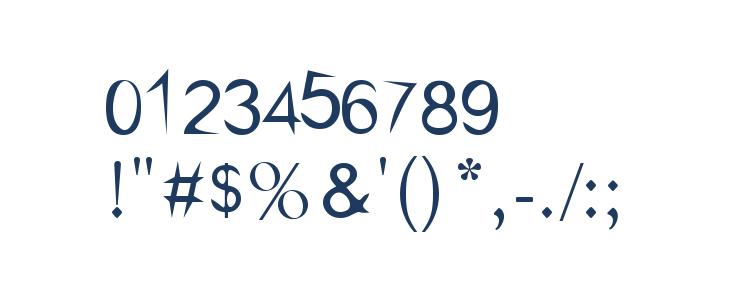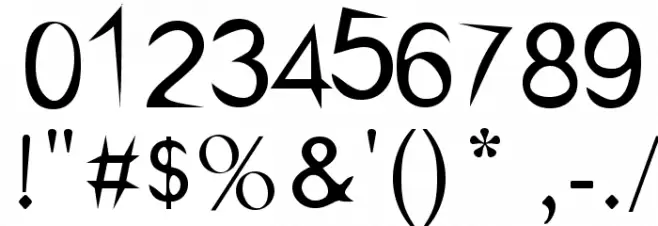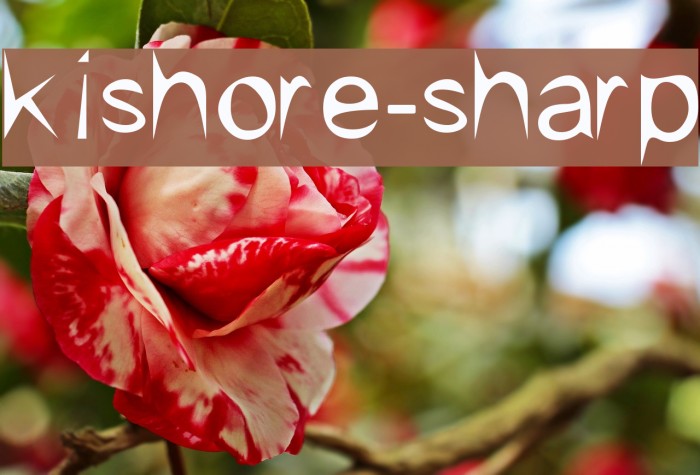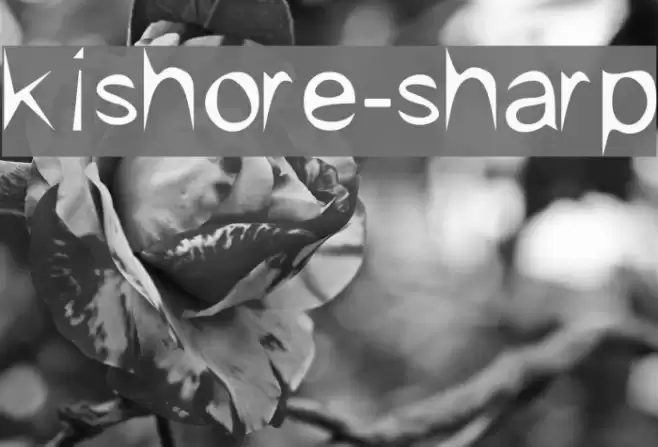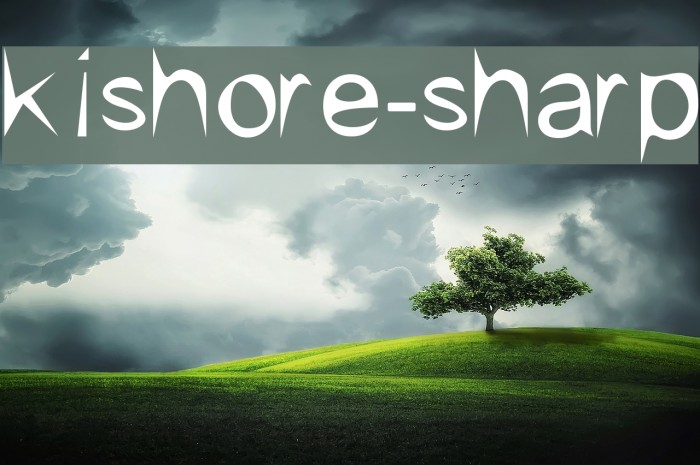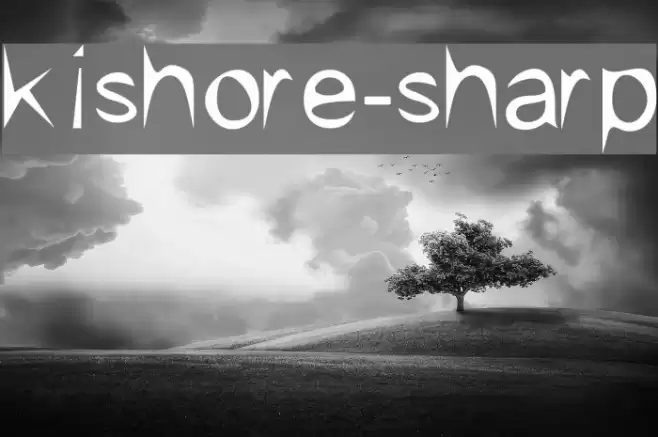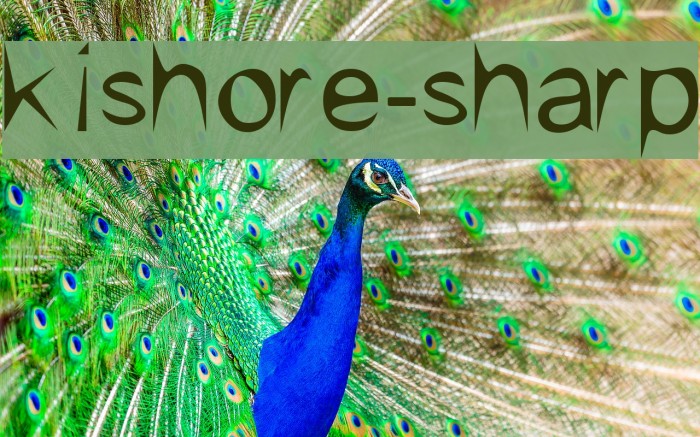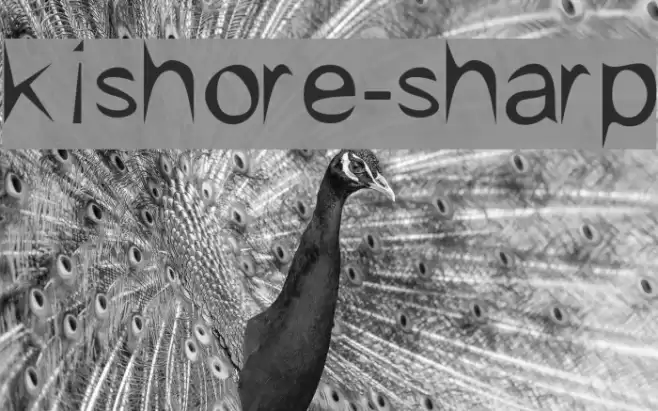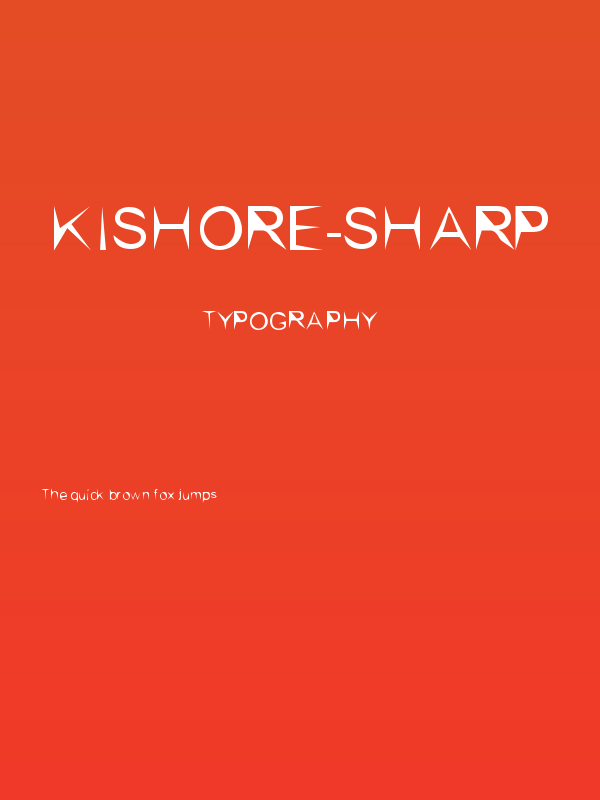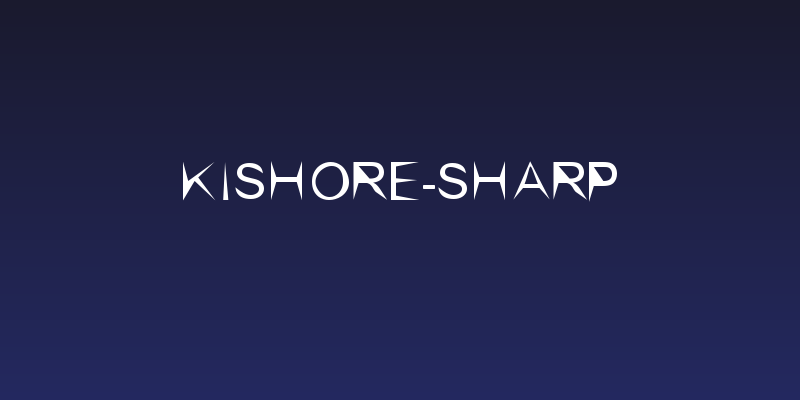
kishore-sharp Font
kishore-sharp Description
This font features a sharp, angular design with a modern and edgy aesthetic. The uppercase letters exhibit a bold and striking appearance, characterized by pointed edges and dynamic shapes. The lowercase letters maintain a consistent style, with unique curves and angles that add to the overall distinctiveness. Numbers and special characters follow the same sharp design, ensuring uniformity across all elements. This font's unique style makes it stand out, offering a visually engaging experience.
| Proposed Projects | Ideal for branding, posters, album covers, and any project requiring a bold, modern statement. |